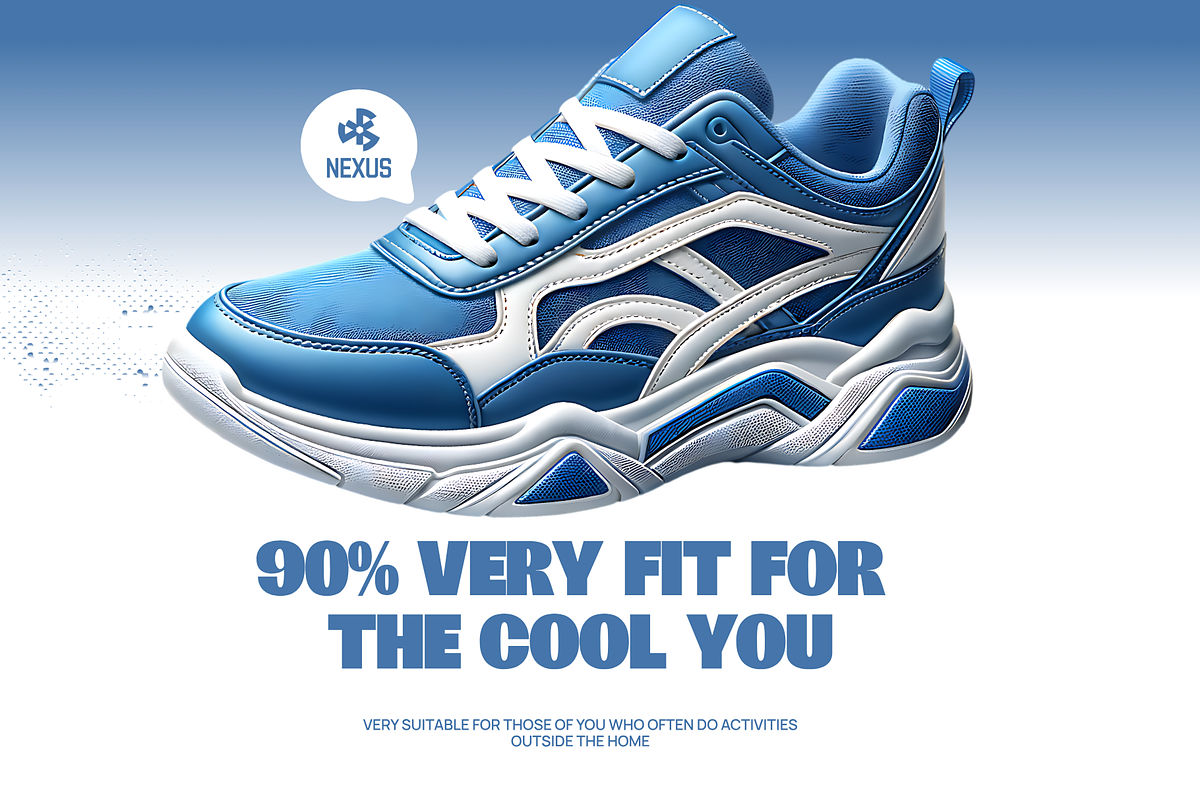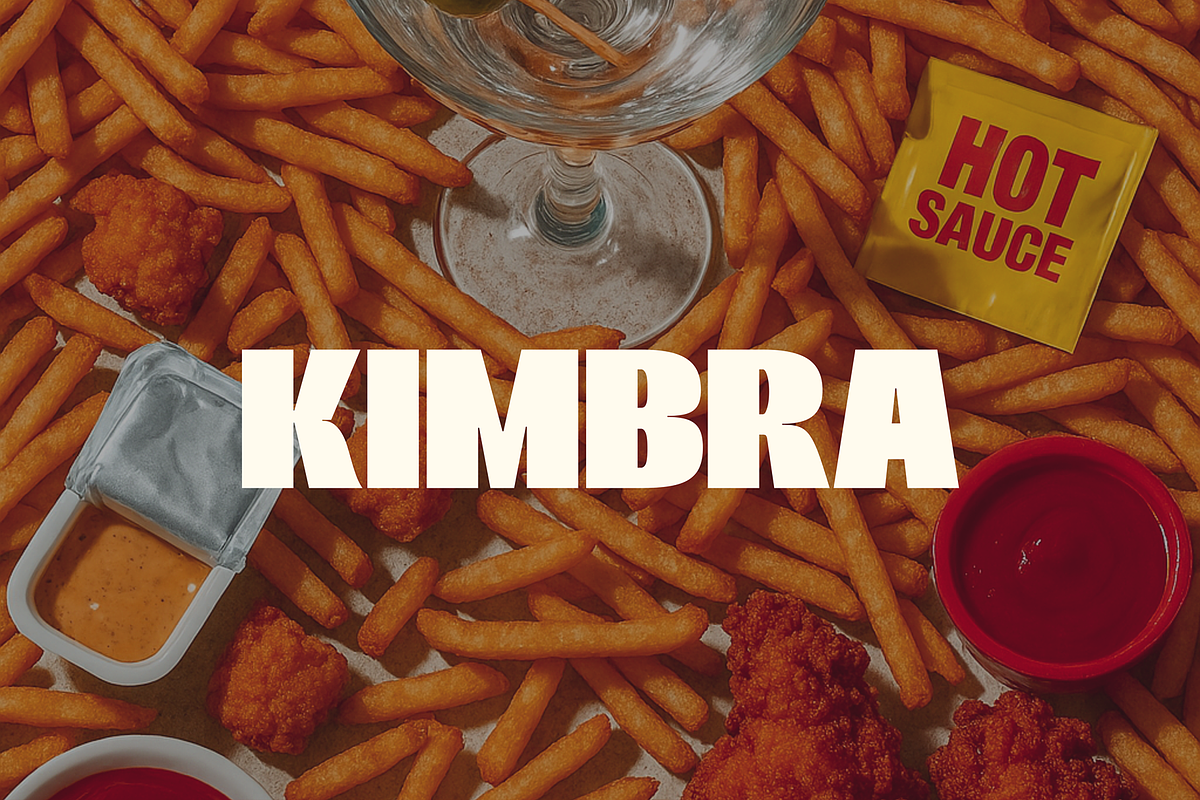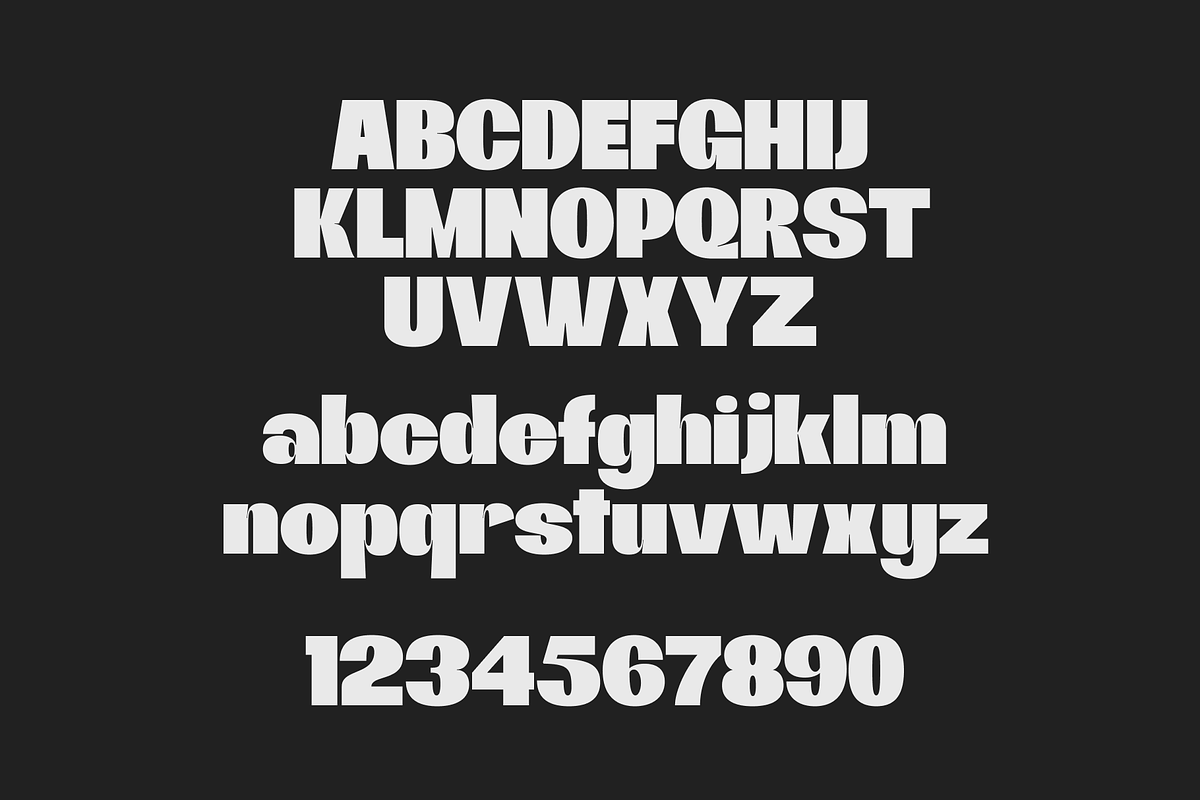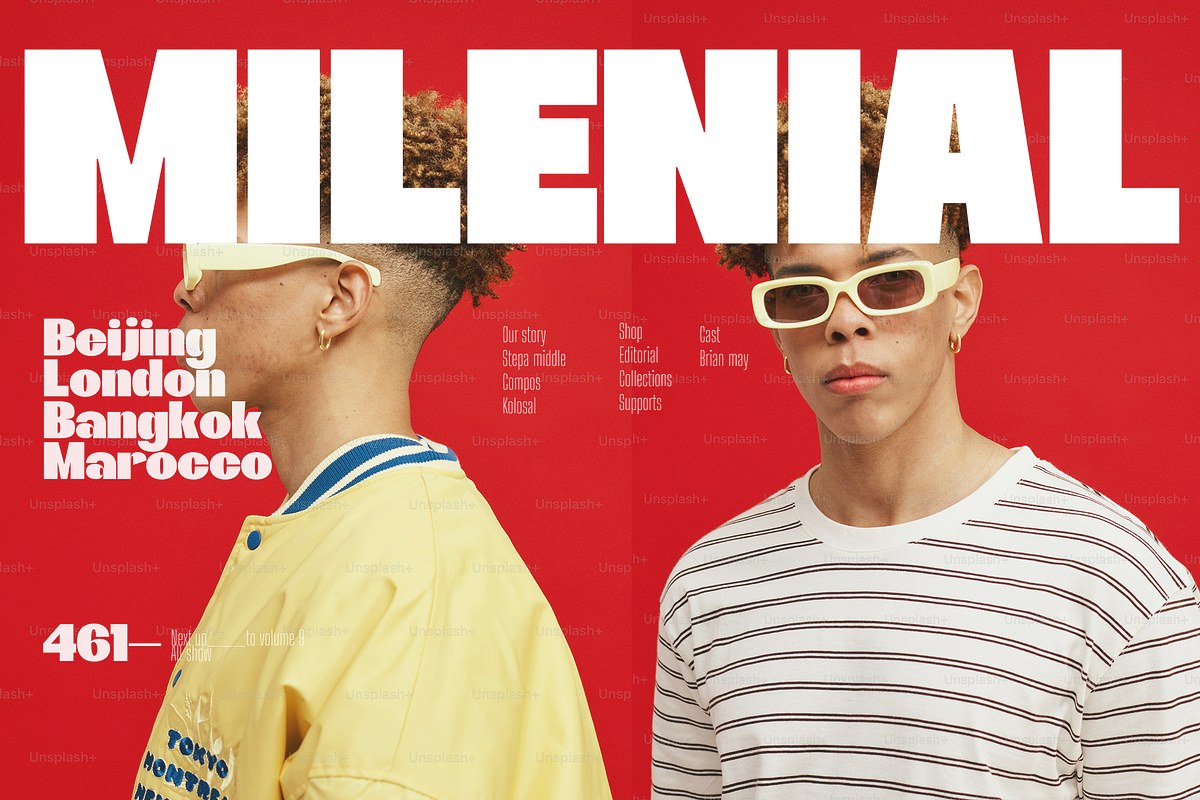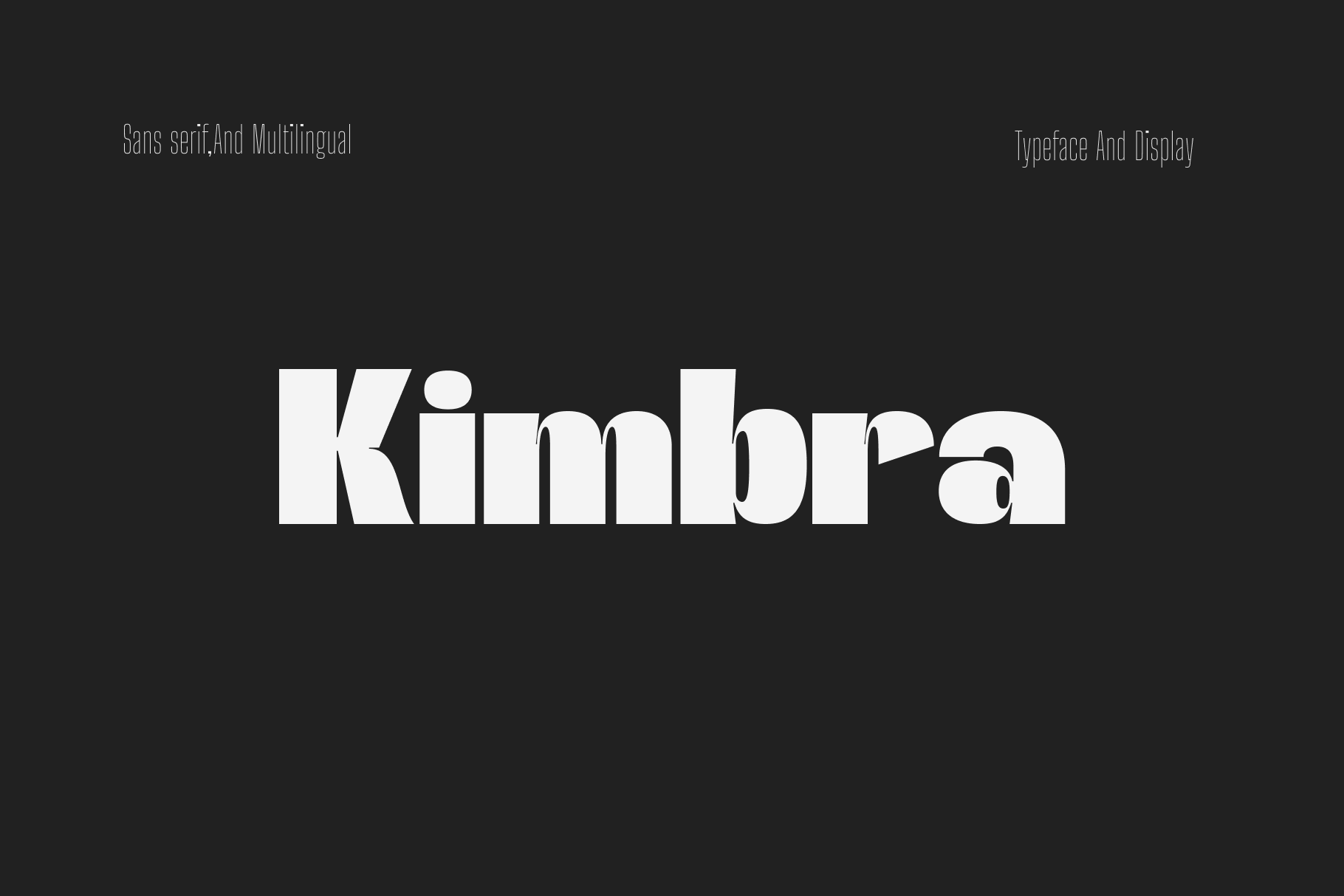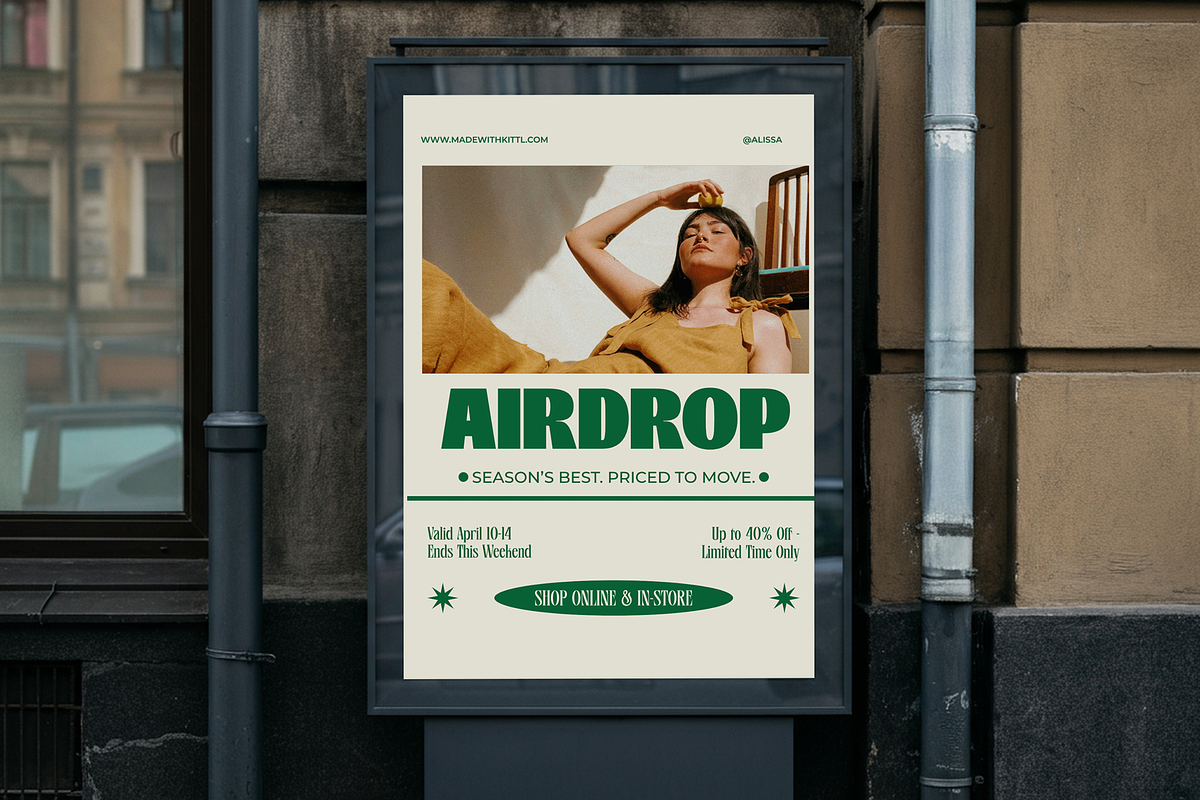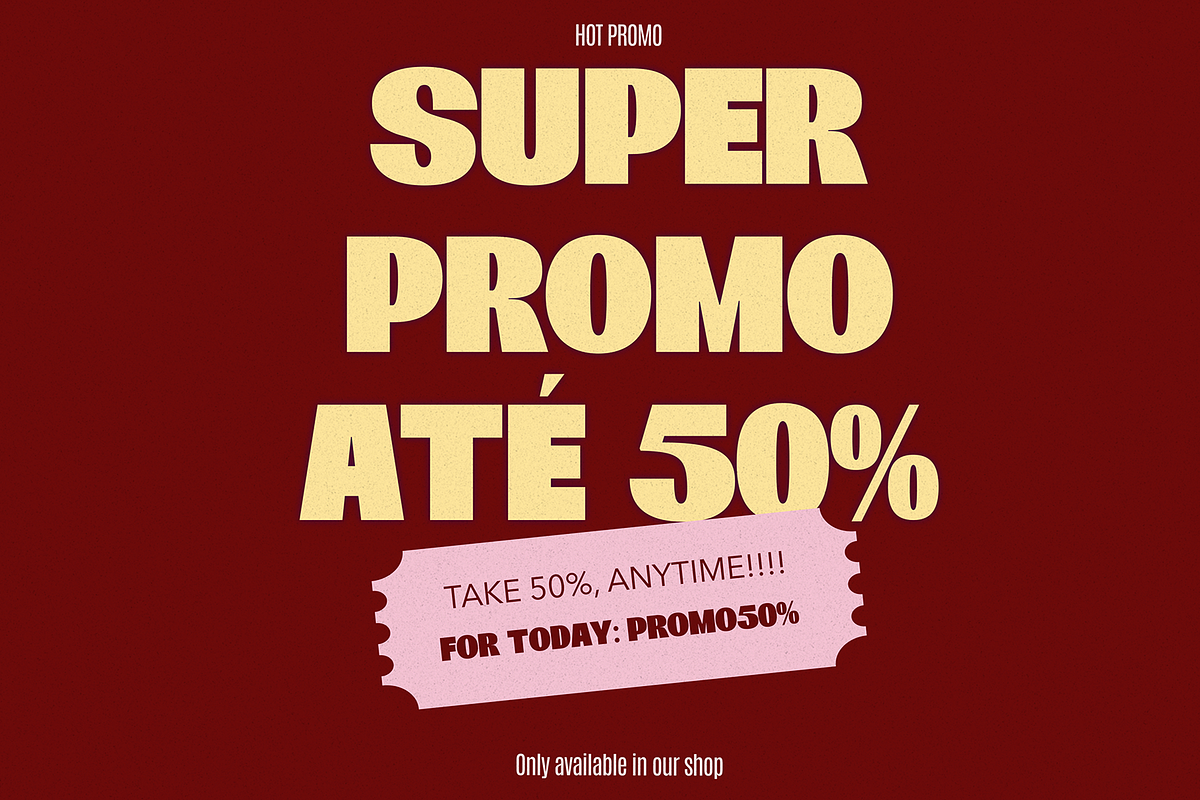
Kimbra Display font
Kimbra is a bold condensed display font that is inspired by sports. The slight slants in many of the characters give this font an athletic feel. Kimbra can be used diversely, but is particularly best in logos and large typographic applications.